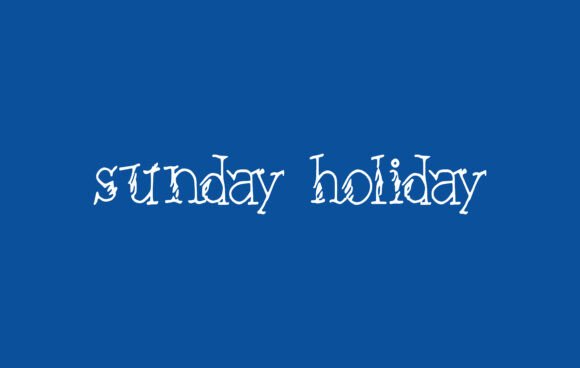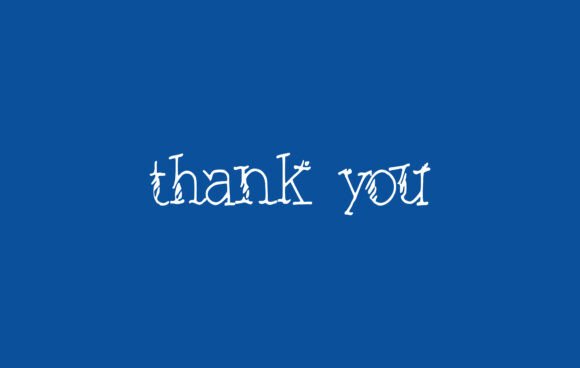
Dulce Font: The Ultimate Choice for Creative Expression
Are you a designer, crafty person, or creative enthusiast looking for a font that can elevate your visual projects to new heights? Look no further than Dulce Font, an authentic handwritten font with a romantic touch. In this article, we’ll explore the features, benefits, and uses of Dulce Font, and why it’s becoming a favorite among creative professionals.
What is Dulce Font?
Dulce Font is a beautifully designed handwritten font that exudes a sense of romance and elegance. Expertly crafted to be a true favorite, this font has the potential to take your creative ideas to the highest level. Its unique and authentic style makes it perfect for a wide range of design projects, from magazine headlines to social media graphics, branding, wedding invitations, and more.
Key Features of Dulce Font
- Legibility: Dulce Font is designed to be highly legible, making it perfect for both title and body text.
- Romantic Touch: The font’s handwritten style gives it a romantic and personal feel, adding a touch of warmth to any design.
- Versatility: Dulce Font can be used for a wide range of design projects, including magazine headlines, social media graphics, branding, wedding invitations, cards, and more.
Benefits of Using Dulce Font
So, why choose Dulce Font for your design projects? Here are just a few benefits of using this amazing font:
- Adds a Personal Touch: Dulce Font’s handwritten style adds a personal touch to your designs, making them more relatable and engaging.
- Enhances Visual Appeal: The font’s elegant and romantic style enhances the visual appeal of your designs, making them more attractive and eye-catching.
- Boosts Creativity: Dulce Font’s unique style can inspire creativity and help you think outside the box, leading to fresh and innovative design ideas.
Uses of Dulce Font
Dulce Font is an incredibly versatile font that can be used for a wide range of design projects, including:
- Magazine Headlines: Use Dulce Font to create eye-catching headlines for your magazine or publication.
- Social Media Graphics: Add a touch of elegance to your social media graphics with Dulce Font.
- Branding: Use Dulce Font to create a consistent brand identity across all your marketing materials.
- Wedding Invitations: Dulce Font is perfect for creating beautiful and romantic wedding invitations.
- Cards and Stationery: Use Dulce Font to create lovely cards and stationery for any occasion.
Tips for Using Dulce Font
Here are a few tips for getting the most out of Dulce Font:
- Experiment with Colors: Try pairing Dulce Font with different colors to create unique and eye-catching designs.
- Play with Sizes: Experiment with different font sizes to create visual interest and hierarchy in your designs.
- Mix and Match: Try pairing Dulce Font with other fonts to create a unique and interesting design.
In conclusion, Dulce Font is an amazing handwritten font that can elevate your design projects to new heights. Its romantic touch, legibility, and versatility make it perfect for a wide range of design projects. Whether you’re a designer, crafty person, or creative enthusiast, Dulce Font is sure to become a favorite in your design arsenal. So why wait? Give Dulce Font a try today and see the difference it can make in your designs!